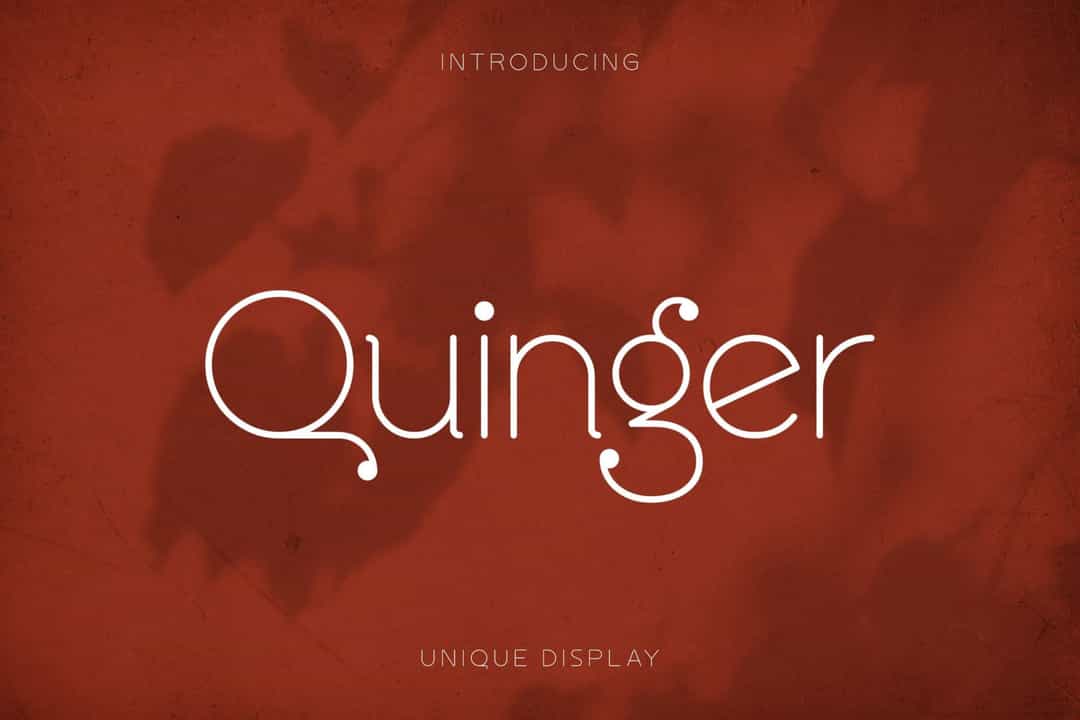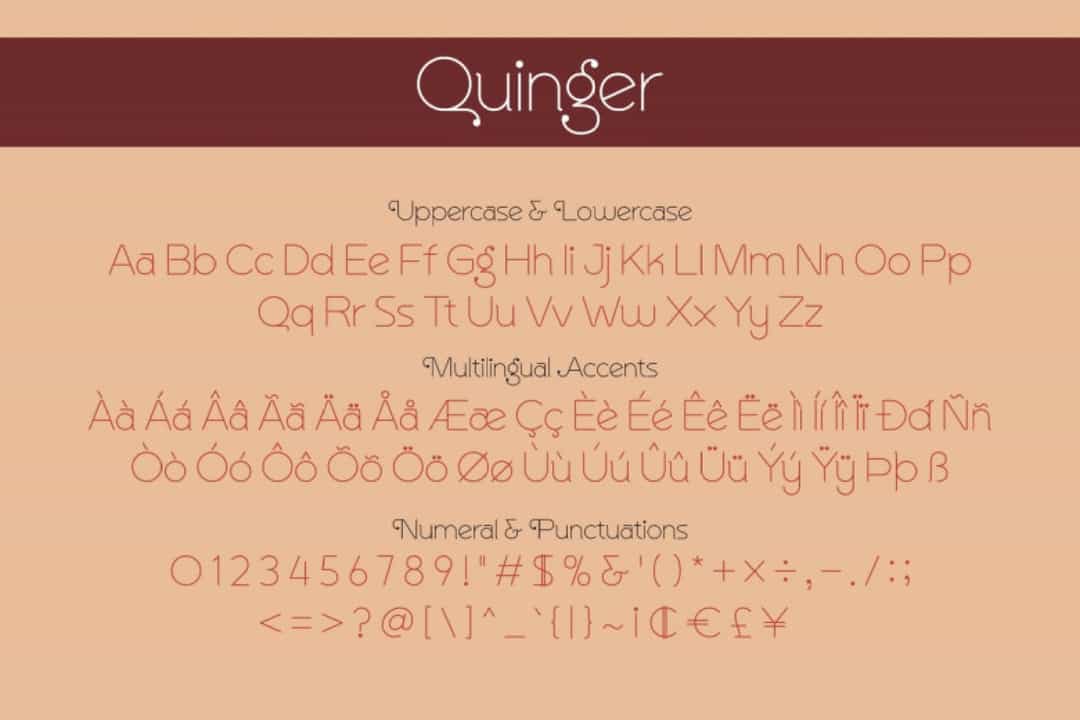
Quinger Unique Sans Display font is based on a popular minimalistic logo and will be a great choice for the design of brochures, videos, logos and advertising. Use it for creating templates for brochures videos logos advertisements branding and many more!